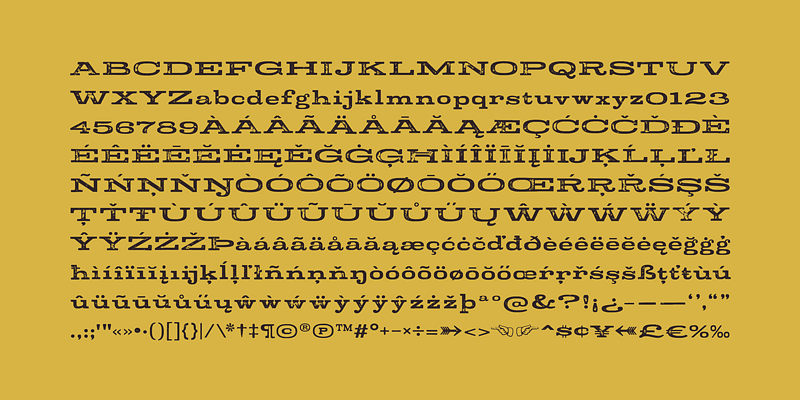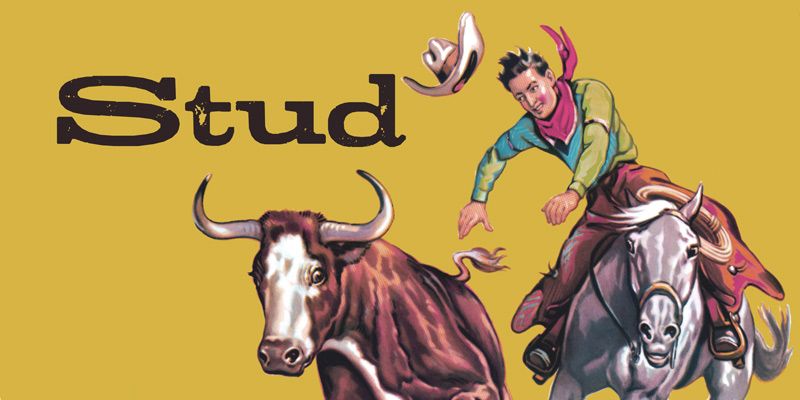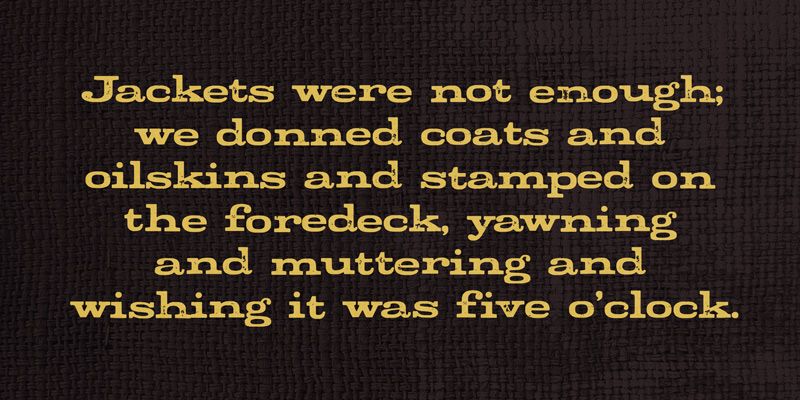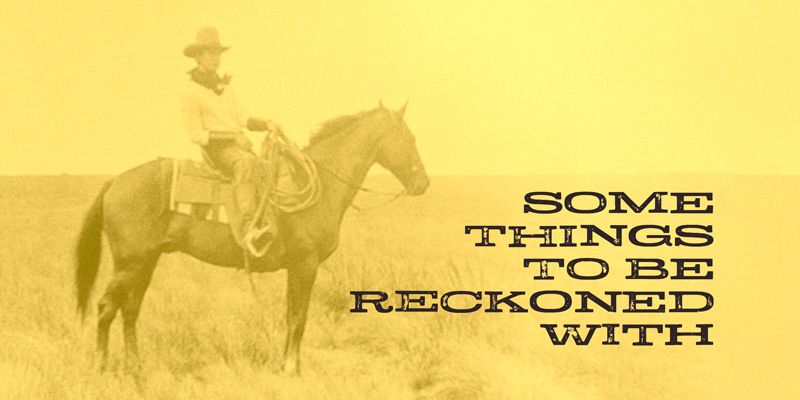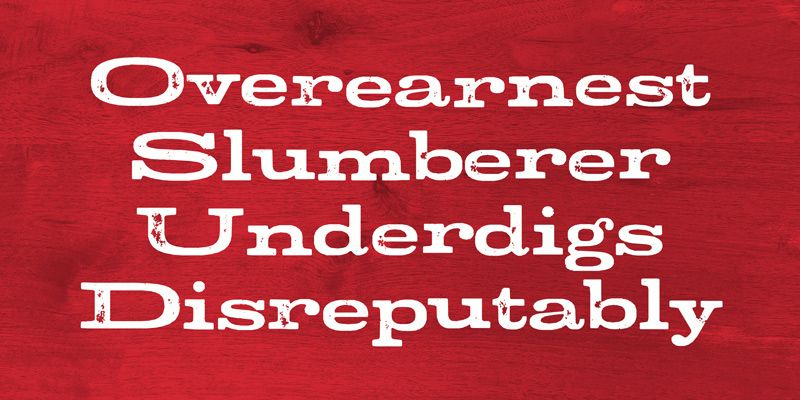
Stud pushes the cowboy slab serif toward comic excess. Its wide letters and heavy slabs make a short word feel broad-shouldered and theatrical, with the familiar Western reference enlarged for a modern poster or package. It is a natural choice for rodeo titles, barbecue brands, country-music merchandise, honky-tonk graphics, and playful frontier-themed games. The effect is strongest when the name has room to spread; squeezing the letters would take away the swagger that makes Stud distinctive. This is Western lettering for a main event, where the cue should be unmistakable and a little larger than life.